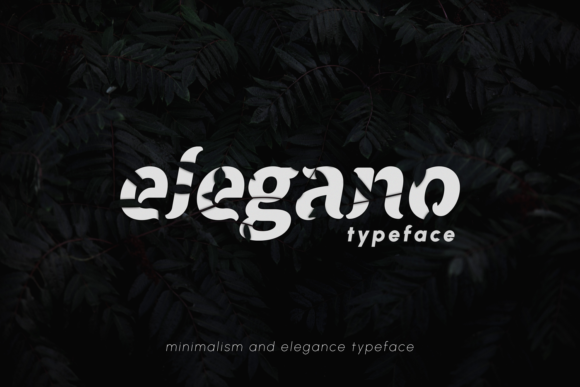
**Unleash the Visual Symphony of Your Dreams: Elegano Font, The Maestro of Unforgettable Designs**
Step into a world where fonts dance with elegance and words ignite the embers of inspiration. Elegano Font, the master of display fonts, invites you on an enchanting journey that will captivate your audience and leave an imprint on their hearts.
Crafted with meticulous care by the visionary designer hakkamamr, Elegano embodies the essence of strength, confidence, and dynamism. Its bold strokes and graceful curves command attention, adding a touch of nostalgic charm to your creations.
Whether you're crafting heartfelt quotes, designing eye-catching logos, or bringing life to your social media posts, Elegano Font is the maestro that will orchestrate your words into a visual symphony. Its versatility knows no bounds, allowing you to express your individuality and make a statement that resonates with the world.
Immerse yourself in the world of Elegano Font and discover a myriad of possibilities. Let your imagination soar, and watch as your designs transform into captivating masterpieces that will leave a lasting impression.